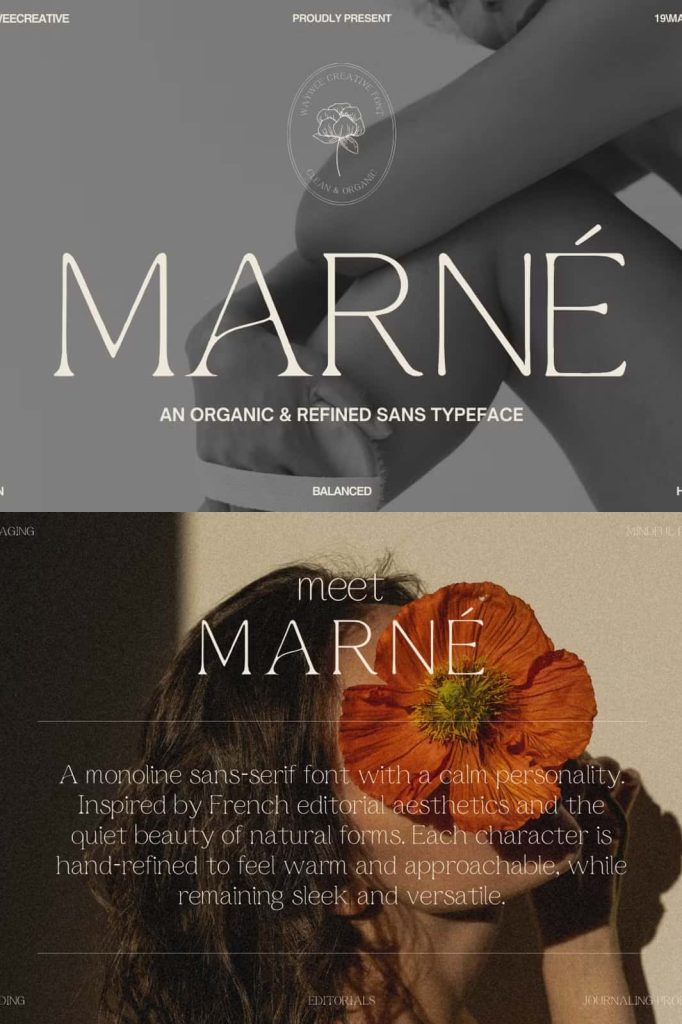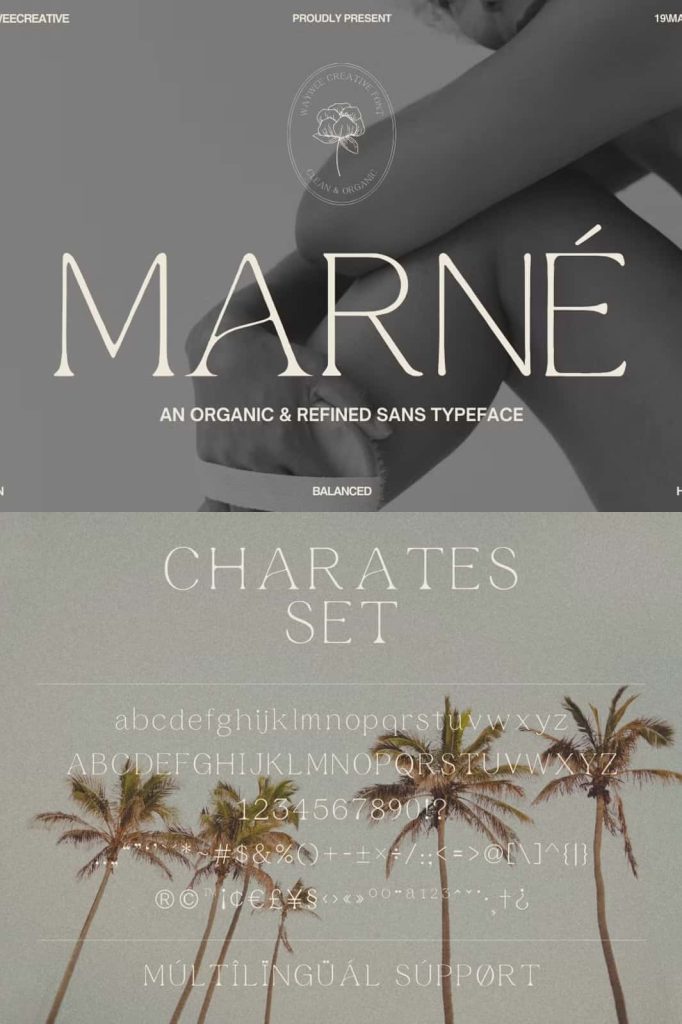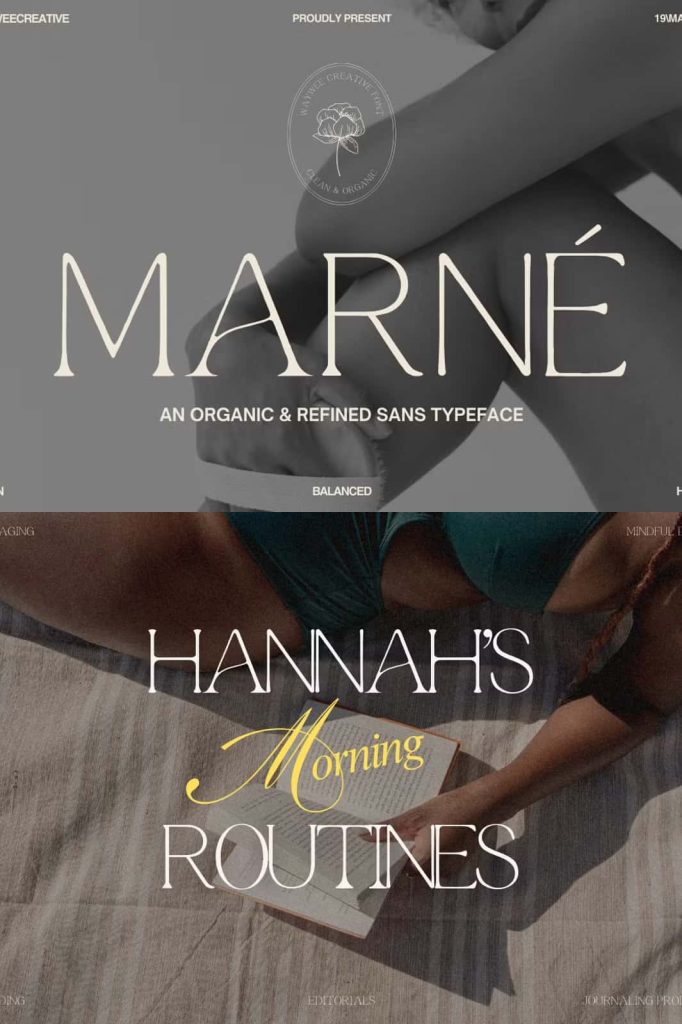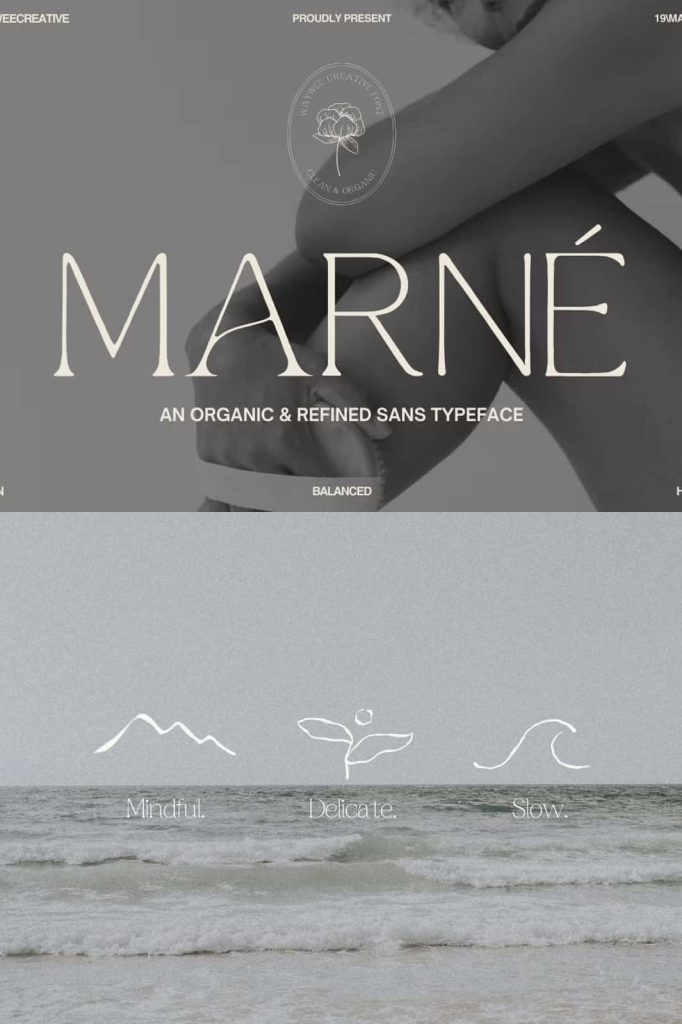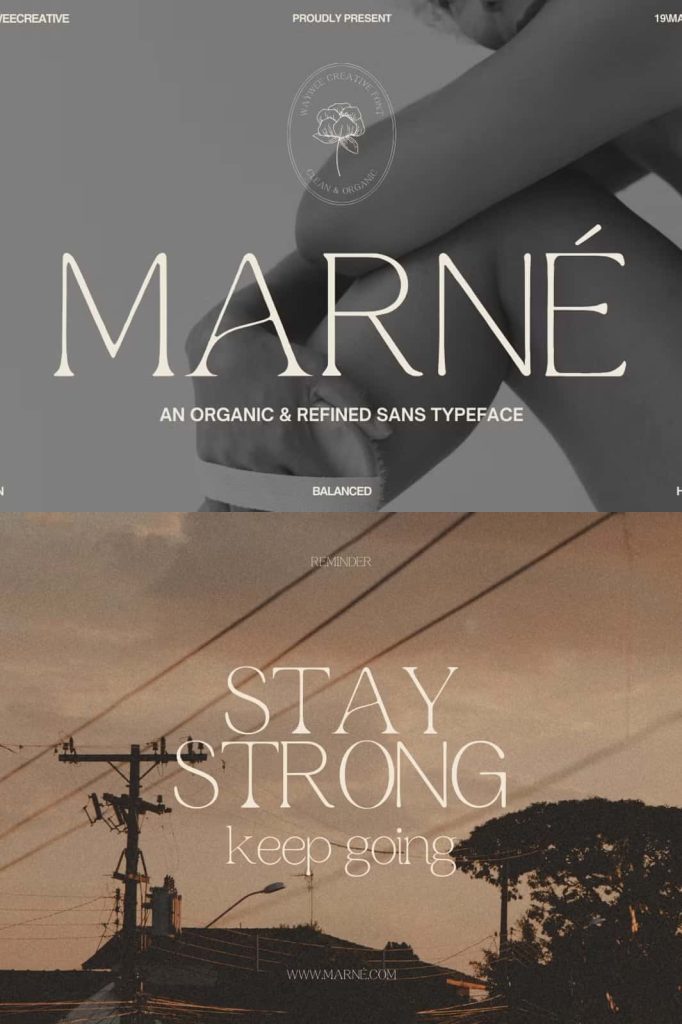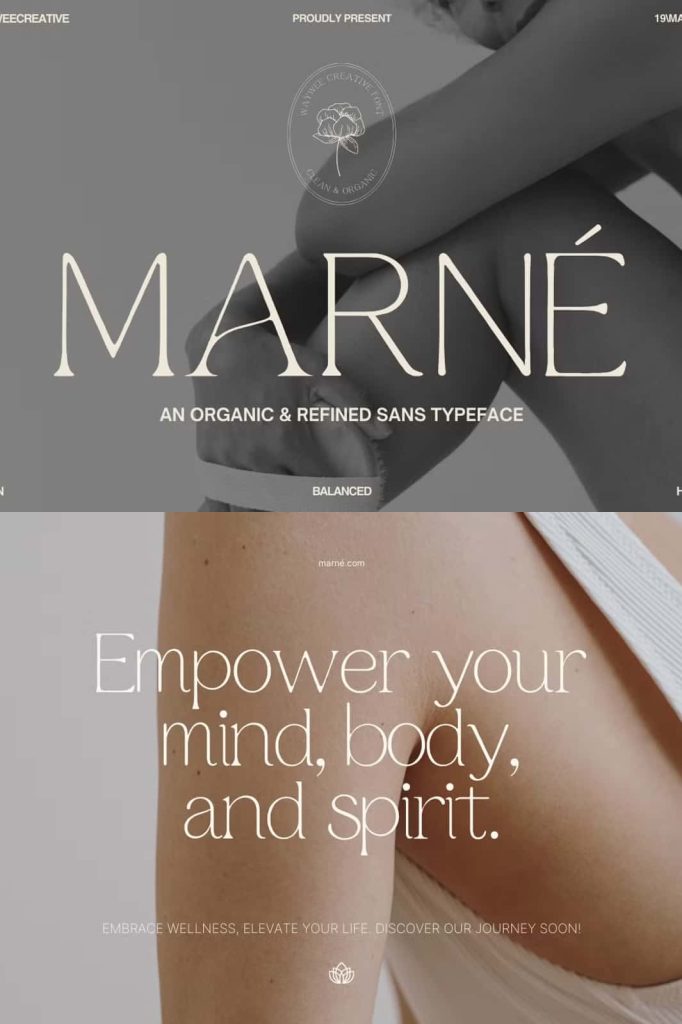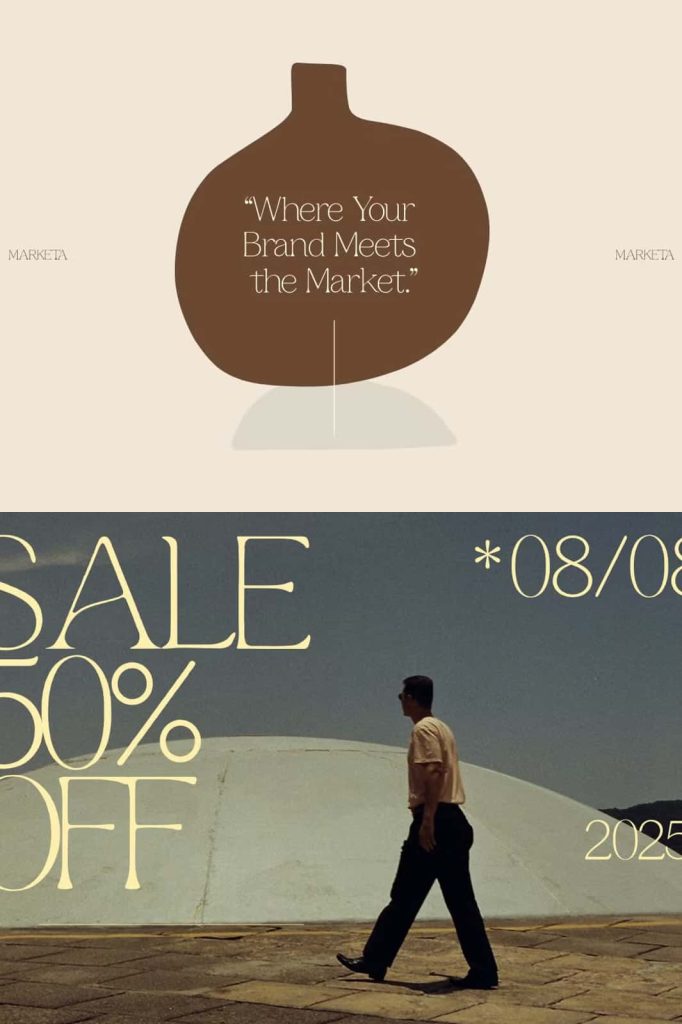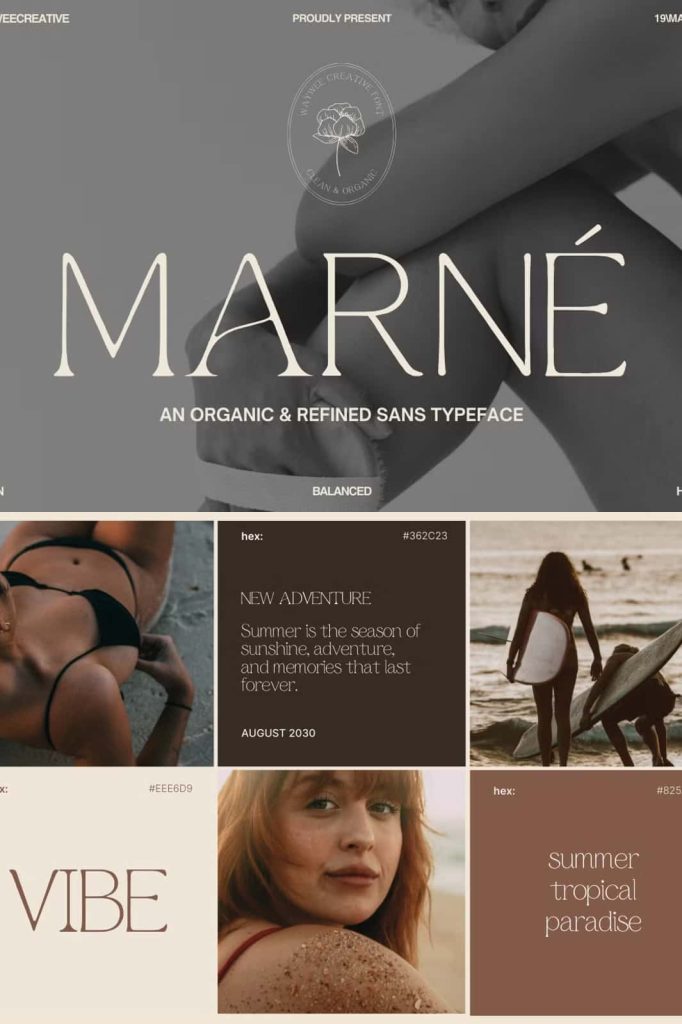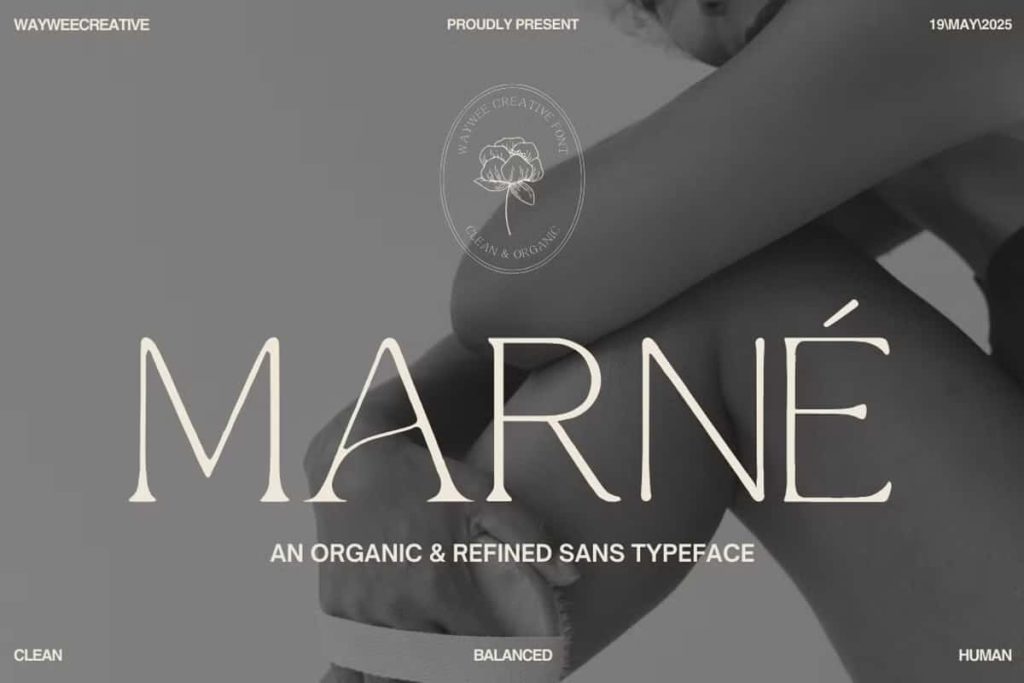
MARNÉ – Modern Organic Sans Serif
MARNÉ Font
MARNÉ is a clean and minimalist sans serif font that brings together contemporary structure, subtle organic curves, and timeless elegance. Designed for creatives who appreciate simplicity with personality, MARNÉ creates a refined visual presence without relying on unnecessary decoration. Its carefully balanced letterforms give every word a polished appearance while the gentle curves introduce a natural and approachable quality.
Inspired by French editorial design and the understated beauty of natural simplicity, MARNÉ offers a sophisticated typographic solution for modern creative projects. It can help a brand communicate confidence, clarity, and elegance while maintaining a warm and human character. From minimalist logos and premium packaging to social media templates and editorial layouts, MARNÉ adapts effortlessly to a wide range of design applications.
Clean Minimalist Sans Serif Design
MARNÉ builds its visual identity around clean sans serif forms. The simple construction creates a strong foundation for contemporary design while keeping text visually organized and easy to integrate into different layouts. Its minimalist approach allows designers to focus on composition, imagery, color, and spacing without competing against overly decorative letterforms.
The font works especially well when you want typography to feel sophisticated but restrained. Its clean shapes create a sense of order, while the subtle organic curves prevent the design from feeling cold or mechanical. This balance gives MARNÉ a versatile personality that can move between professional branding and more artistic creative work.
Inspired by French Editorial Aesthetics
MARNÉ draws inspiration from the refined simplicity often associated with French editorial design. This influence appears through its elegant proportions, understated forms, and confident visual rhythm. The typeface creates an editorial atmosphere that feels modern, cultured, and carefully considered.
Use MARNÉ for magazine headlines, fashion publications, lookbooks, catalogs, photography projects, brochures, and lifestyle content. Its clean structure allows large headlines to command attention while maintaining an elegant overall appearance. Pair it with generous whitespace and carefully selected imagery to create a sophisticated editorial composition.
Timeless Elegance with Organic Curves
Although MARNÉ follows a minimalist sans serif structure, its subtle organic curves give the typeface a distinctive personality. These softer details add warmth and create a more natural visual flow. As a result, the font can communicate both precision and approachability.
This combination makes MARNÉ particularly effective for brands that want to appear modern without becoming overly technical. It can help lifestyle, fashion, wellness, beauty, hospitality, and creative brands establish a visual identity that feels contemporary, calm, and trustworthy.
Perfect for Modern Branding
MARNÉ provides a strong foundation for modern brand identities. Its clean letterforms can create memorable logos, wordmarks, brand names, slogans, and visual communication systems. The minimalist construction also makes it easy to adapt across digital and printed materials.
Use MARNÉ for boutique businesses, creative studios, fashion labels, interior design companies, architecture firms, lifestyle brands, beauty businesses, and technology companies. Its restrained elegance allows a brand name to remain the central focus while still adding a recognizable typographic personality.
Logo and Wordmark Design
A minimalist logo often depends on subtle details, and MARNÉ gives designers a strong typographic foundation for creating clean wordmarks. Its balanced forms can help short brand names look polished and professional. Experiment with letter spacing, capitalization, alignment, and scale to develop a distinctive logo that feels both modern and timeless.
Because MARNÉ avoids excessive decoration, it can also work effectively alongside simple symbols, monograms, geometric marks, or organic graphic elements. This flexibility makes it easy to create a cohesive identity system that remains consistent across different applications.
Elegant Packaging Design
MARNÉ can transform product packaging with its clean and sophisticated appearance. Its minimalist character works particularly well for premium products that rely on simplicity and visual clarity. Use the font for product names, collection titles, labels, ingredient information, packaging headlines, and supporting text.
It works beautifully for skincare, cosmetics, candles, home goods, specialty food products, fashion accessories, stationery, and lifestyle products. Combine MARNÉ with subtle colors, natural textures, photography, or generous whitespace to create packaging that feels calm and premium.
Social Media and Digital Templates
Modern brands need typography that performs consistently across digital platforms, and MARNÉ provides the clean structure required for social media design. Use it for Instagram graphics, promotional posts, story templates, advertisements, digital banners, website graphics, and campaign materials.
From branding and logo design to packaging, social media templates, editorial layouts, fashion projects, and lifestyle campaigns, MARNÉ adapts to a wide variety of creative applications. Use its refined letterforms to build clean wordmarks, engaging headlines, premium product packaging, and memorable digital content. If your project calls for a minimalist font with elegance, structure, and a subtle human touch, MARNÉ is a strong and versatile choice.